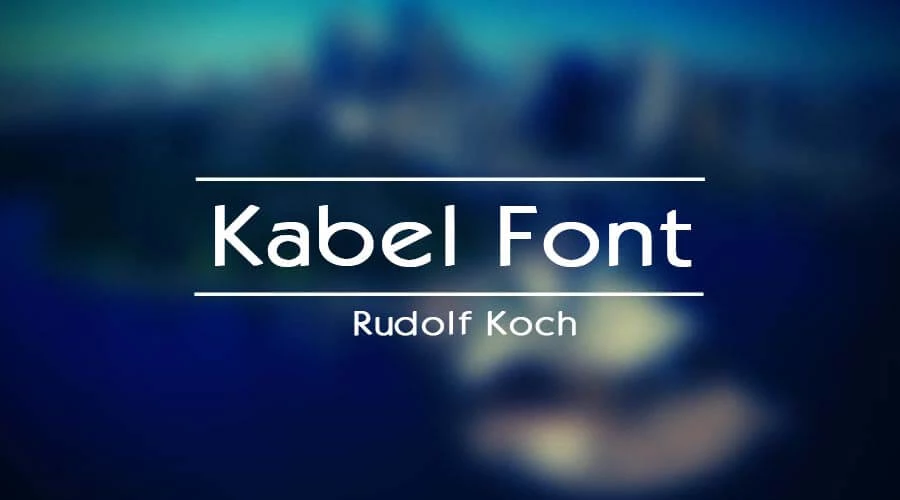
Kabel Font
Kabel font is a geometric sans-serif typeface designed by German designer Rudolf Koch and released by the Klingspor foundry from 1927 onwards. With its four weights and stylistic alternates, Kabel is very eye-catching and elegant. Primarily based loosely on the structure from the circle and straight lines, it, even so, applies many uncommon design and style selections, such as a delicately small x-height (though larger during the bold body weight), a tilted ‘e’ and irregular angled terminals, so as to add delicacy and an irregularity suggesting classy calligraphy, of which Koch was a professional.
As the font has four weights, it is good for almost every section you need.
• Designing Work: As the font has four weights, it is good for almost every section you need. For the geometric shape, it may not cover artistic design areas but has a look of great designs.
• Headline: For the Headlines and Text, Kabel font is very good to use. You can utilize its couple of formats according to requirements.
• Official work or Documentation: The font has the look to use in the official work and documentation.
• Logos: You can design your logos with it.
• Websites: I have seen various websites use this font.